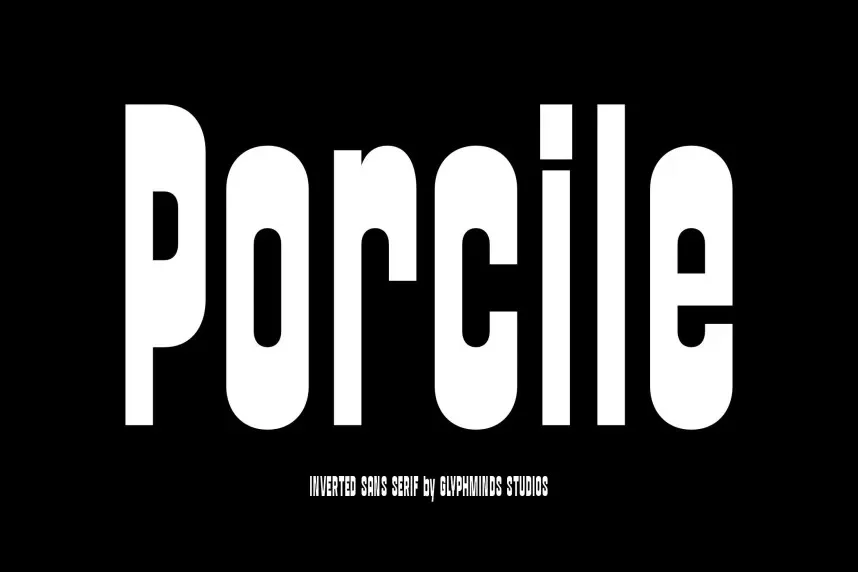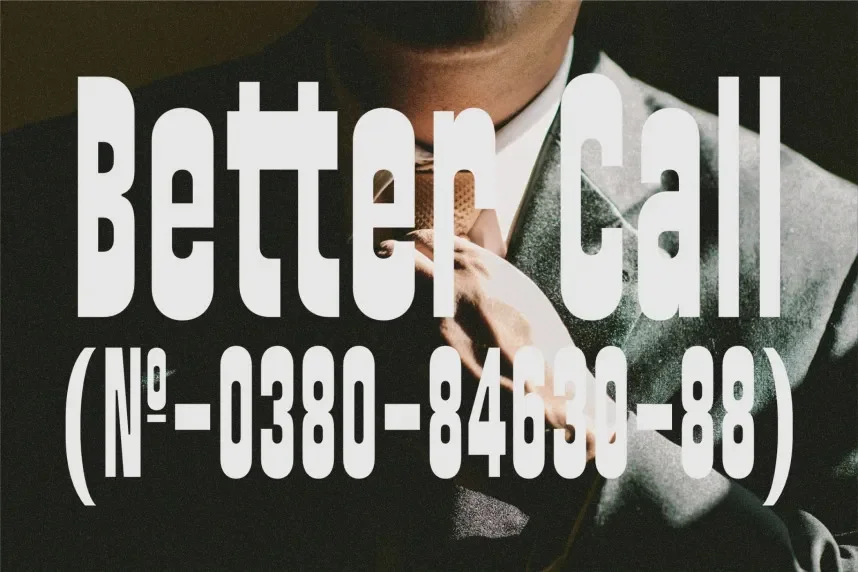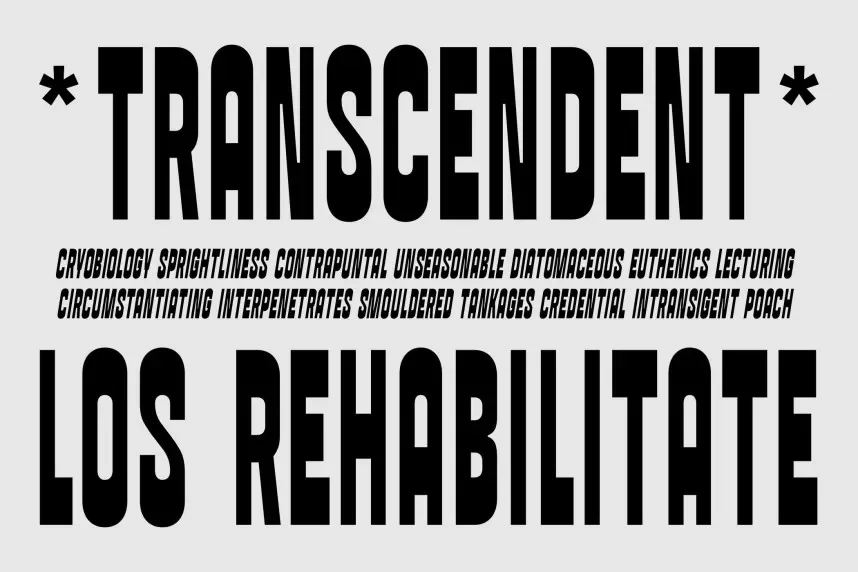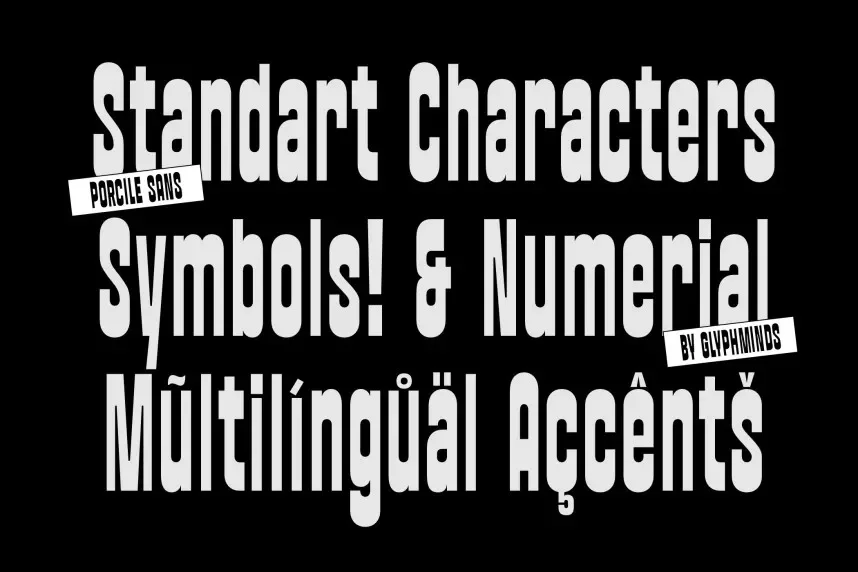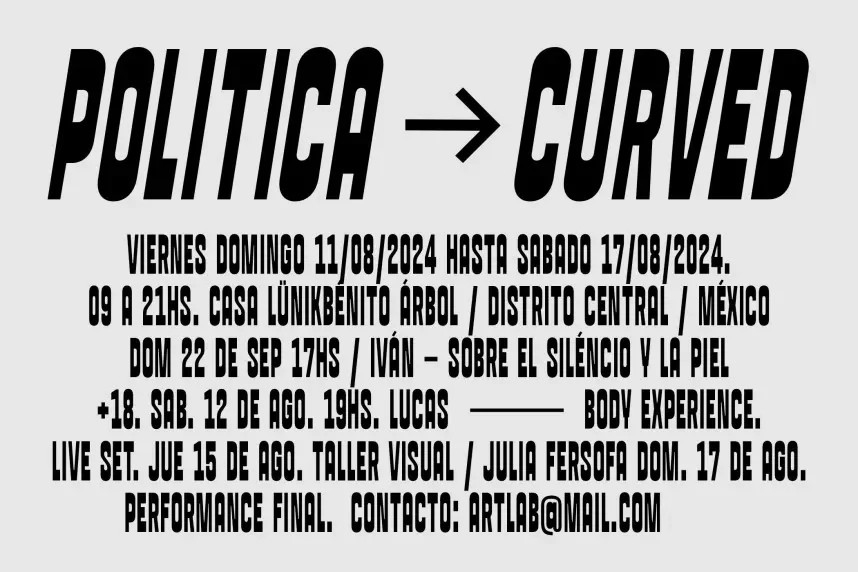
Porcile Font helps designers create visual impact where standard fonts feel too neutral. Display projects often need strong shapes that hold attention without relying on long text.
Porcile is a decorative display font with thick strokes, irregular contours, and expressive letterforms. The design emphasizes personality over paragraph readability, making it suitable for short text. Spacing stays balanced to avoid clutter in headlines.